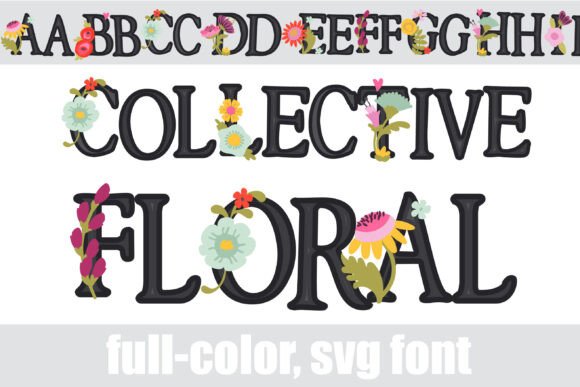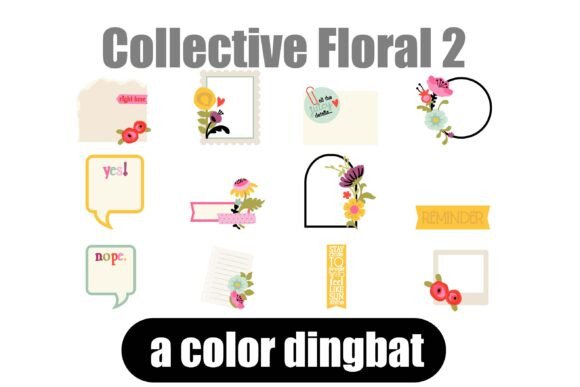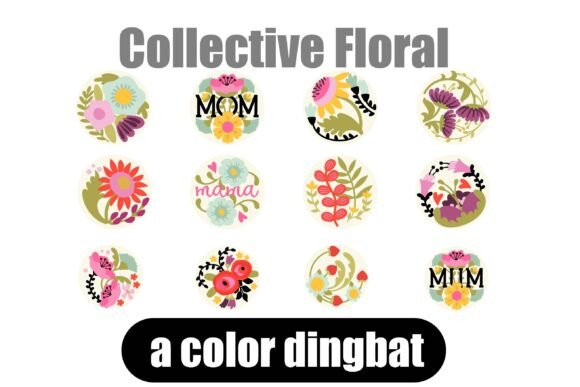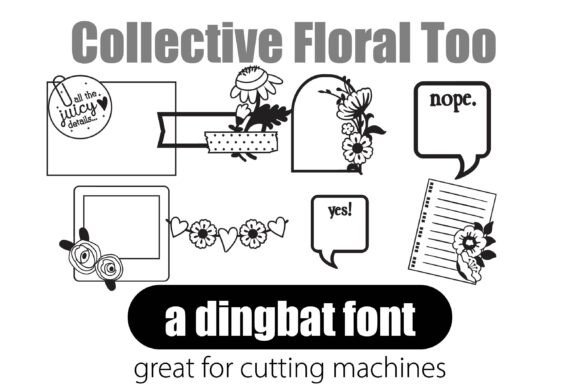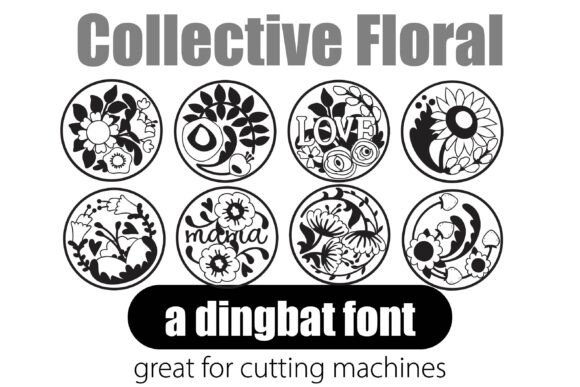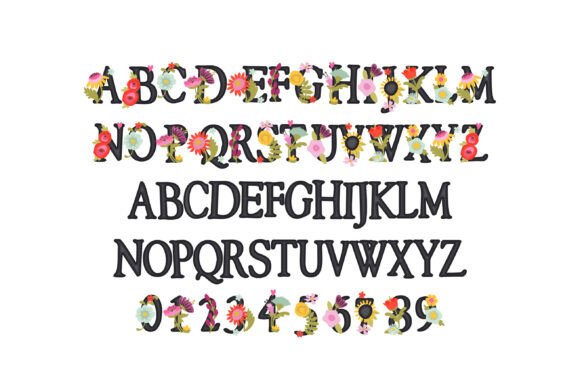
Introducing Collective Floral Font: Elevate Your Designs with Vibrant Florals
Are you a designer or crafter looking for a unique and creative way to add a personal touch to your projects? Look no further than the Collective Floral Font bundle! This exciting collection features brightly-colored florals in circular designs, along with a range of journaling and card making graphics to inspire your next creation.
What’s Included in the Collective Floral Font Bundle?
The Collective Floral Font bundle is a comprehensive collection of design elements, carefully crafted to help you create stunning visual projects. Here’s what you can expect:
• 1 full-color font, complete with an alt case of additional colors for each letter, accessible through your system or Silhouette’s glyph map
• 2 full-color dingbats, perfect for adding decorative touches to your designs
• 2 regular dingbats, ideal for use in a variety of creative projects
The Benefits of Full-Color SVG Fonts
Full-color SVG fonts offer a world of creative possibilities, allowing you to add intricate, multi-colored designs to your projects with ease. With the Collective Floral Font bundle, you can:
• Create stunning visual effects without the need for complex design software
• Add a personal touch to your journaling, card making, and other craft projects
• Elevate your designs with vibrant, high-quality graphics
Tips for Using the Collective Floral Font Bundle
To get the most out of the Collective Floral Font bundle, consider the following tips:
• Experiment with different font combinations to create unique visual effects
• Use the full-color dingbats to add decorative touches to your designs
• Incorporate the regular dingbats into your journaling and card making projects for added texture and interest
The Collective Floral Font bundle is an exciting collection of design elements, perfect for designers and crafters looking to add a creative touch to their projects. With its range of full-color fonts, dingbats, and graphics, this bundle offers endless possibilities for creating stunning visual effects. Whether you’re working on a journaling, card making, or other craft project, the Collective Floral Font bundle is sure to inspire your next creation.